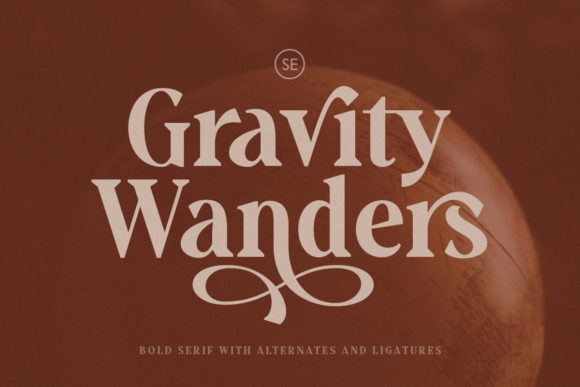
Behold a typographic gem – The Gravity Wanders Font, a captivating serif font family that exudes timeless elegance and modern sophistication, crafted by the skilled hands of saridezra. This meticulously designed font promises to elevate your creative projects with its irresistible charm.
Delve into the realm of Gravity Wanders and discover a world of endless possibilities. Its graceful strokes, reminiscent of calligraphy's finest artistry, evoke a sense of sophistication and poise. Whether you're crafting a fashion blog post, an artistic invitation, or a stunning logo, Gravity Wanders will add a touch of artistic flair that leaves a lasting impression.
Immerse yourself in the font's symphony of ligatures and alternates, a collection of carefully crafted characters that dance together harmoniously, adding a touch of visual intrigue to your projects. Create captivating headlines that demand attention, weave enchanting tales with your blog posts, or design logos that exude uniqueness and style. The possibilities are endless with Gravity Wanders, a font that inspires boundless creativity.
As a PUA-encoded font, Gravity Wanders grants you effortless access to its entire repertoire of glyphs and swashes. Unleash your imagination and incorporate intricate flourishes, delicate swashes, and stunning ligatures into your designs with unparalleled ease. Transform ordinary text into mesmerizing works of art, capturing the hearts and minds of your audience.
Join the ranks of creative visionaries who have embraced Gravity Wanders' enchanting allure. Let your imagination soar as you craft projects that radiate elegance, sophistication, and timeless beauty. Elevate your designs to new heights, leaving an indelible mark on the world of visual aesthetics.